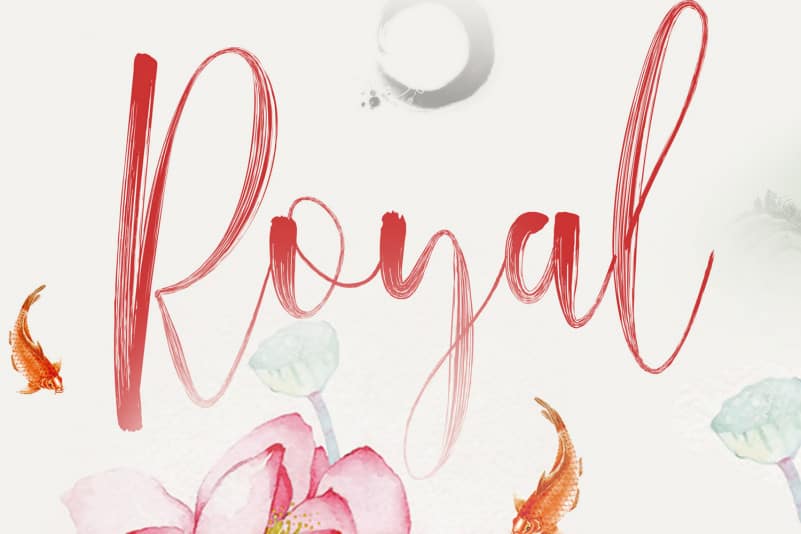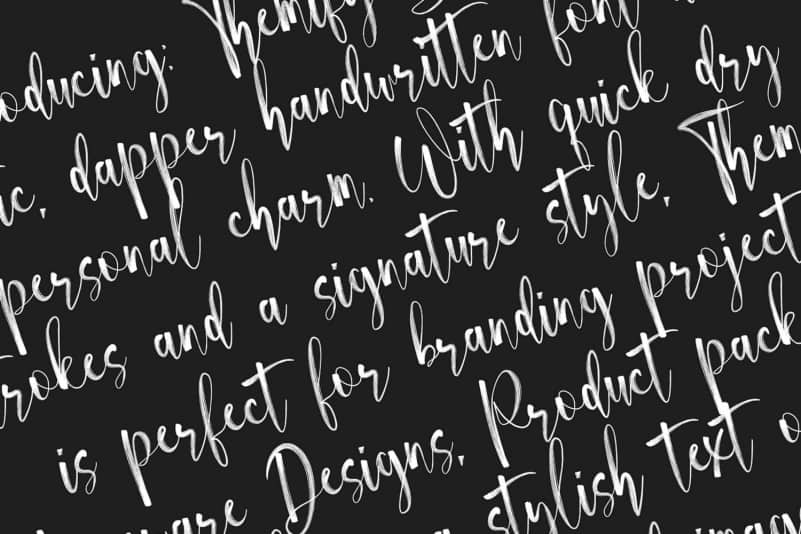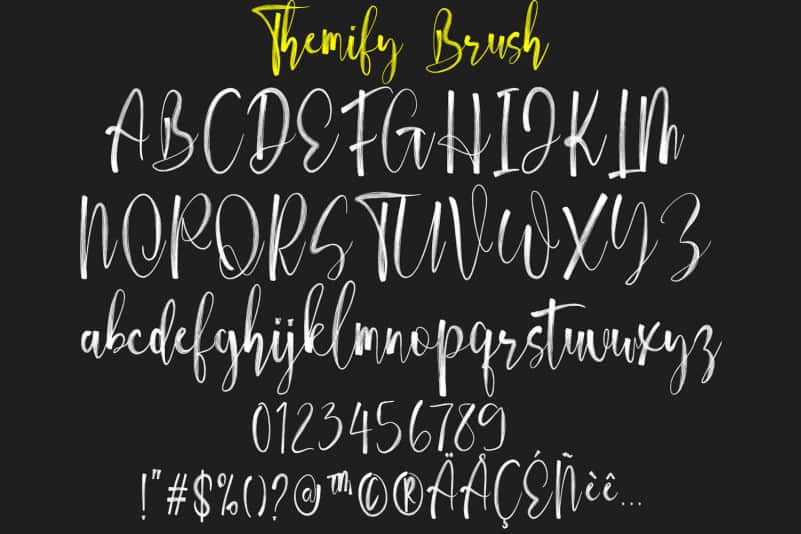
Introducing: Themify Brush Font! A rustic, dapper handwritten font with a personal charm. With quick dry strokes and a signature style, It’s perfect for branding projects, Homeware Designs, Product packaging – or simply as a stylish text overlay to any background image.
Upper + Lowercase Letters
Numbers + Punctuation
OpenType features
Multilingual support